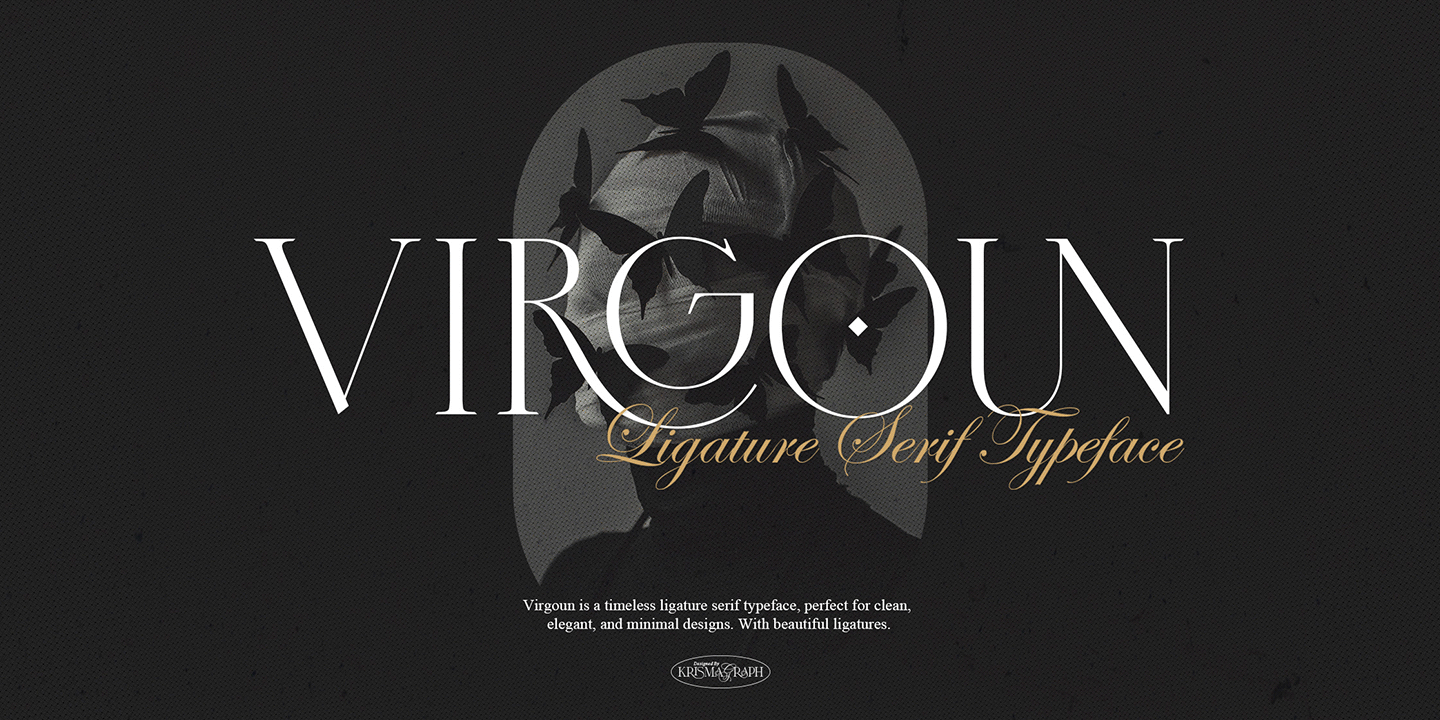
Where Can You Use Virgoun Typeface?
This graceful font excels in:
• Luxury fashion branding (high-end labels, jewelry, perfumes)
• Wedding stationery (elegant invitations, programs, menus)
• Editorial design (premium magazines, art books, literary journals)
• Corporate identity (sophisticated branding for law firms, consultants)
Why Is Virgoun Typeface Exciting?
Virgoun offers unparalleled typographic elegance with:
Exquisite serif details that command attention
Perfect stroke contrast for maximum readability
Multiple stylistic alternates for custom refinement
Seamless versatility from headlines to body text
Virgoun Typeface Family
The complete premium collection includes:
• Virgoun Regular (base elegant style)
• Virgoun Bold (dramatic emphasis)
• Virgoun Italic (fluid, calligraphic variant)
• Virgoun Display (special decorative characters)